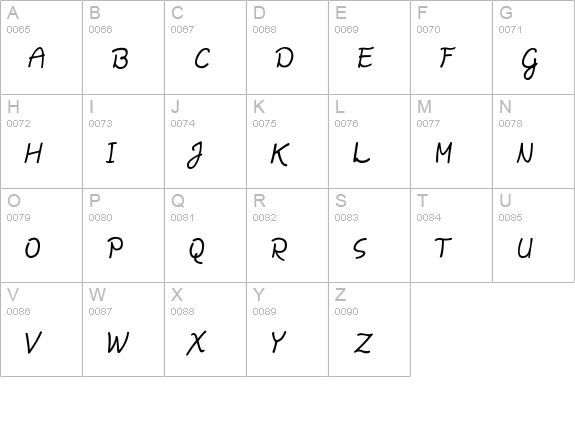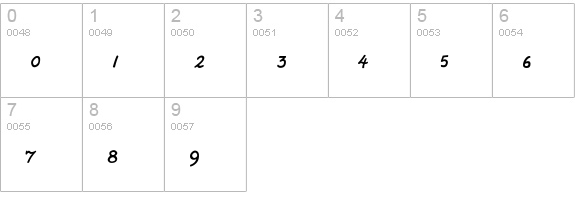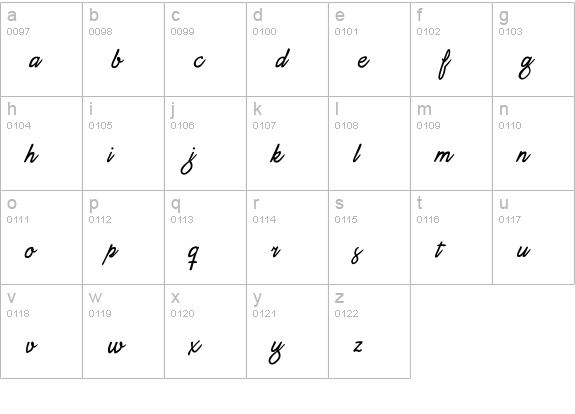
Daisy Script Font Details
Daisy Script is a charming and elegant font that exudes a sense of whimsy and sophistication. With its delicate curves and flowing lines, this script font is perfect for adding a touch of beauty to any project. Whether you're designing wedding invitations, branding materials, or social media graphics, Daisy Script will bring a touch of elegance to your work. What sets Daisy Script apart is not only its graceful design but also the fact that it is free to download. That's right, you can add this beautiful font to your collection without spending a dime. Simply visit FontsMarket.com to freely download Daisy Script and start creating stunning designs today. Whether you're a seasoned designer or just starting out, Daisy Script is sure to become a favorite in your font library.